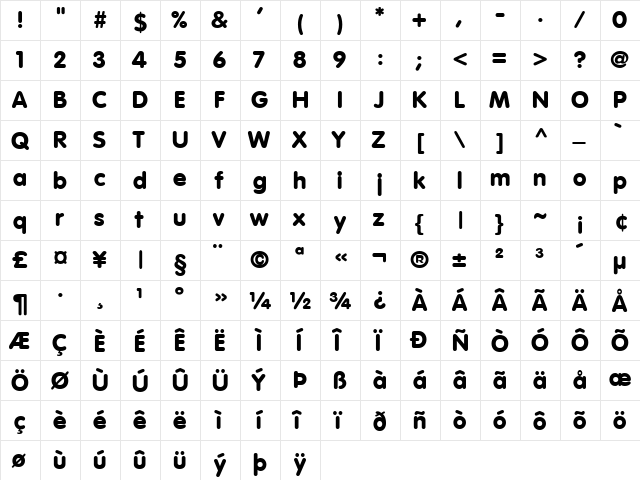
Vogue Bold
Design Context for Vogue Typeface
Vogue is a composed and adaptable typeface that performs quietly and consistently across a wide range of design contexts. Its bold stroke weight gives it real presence on the page.